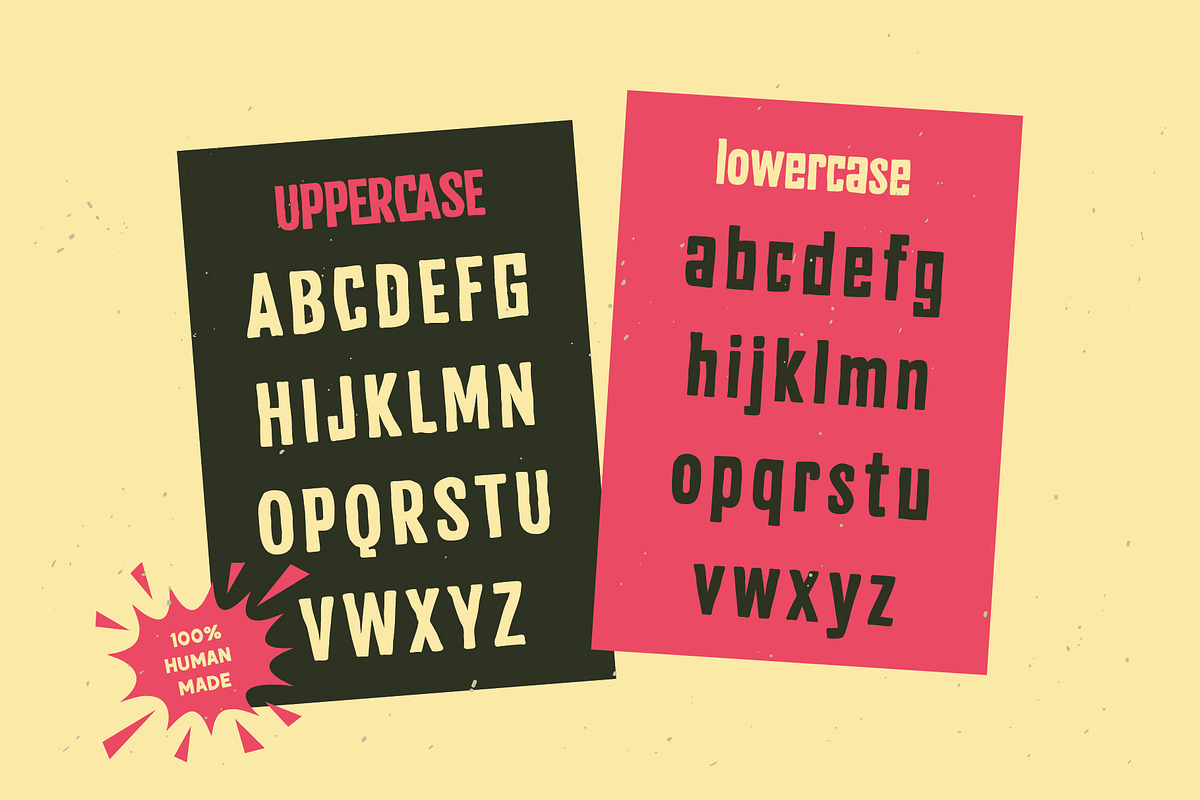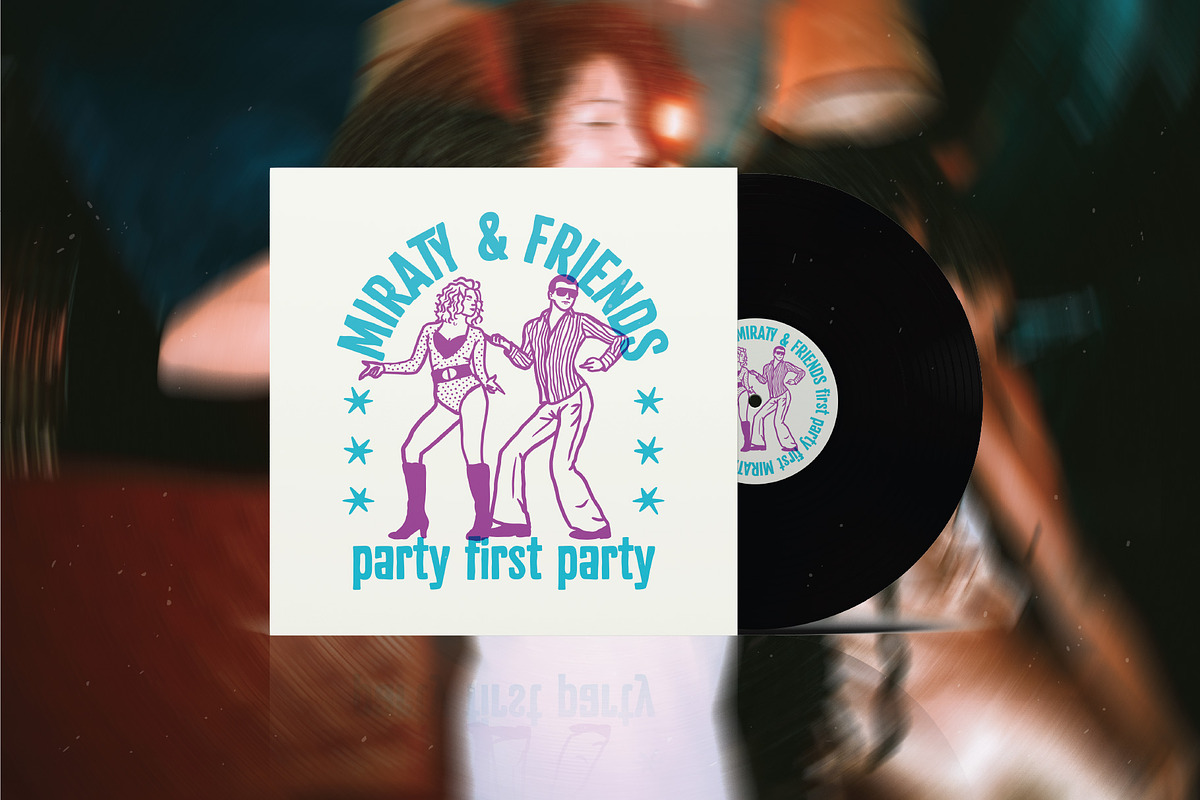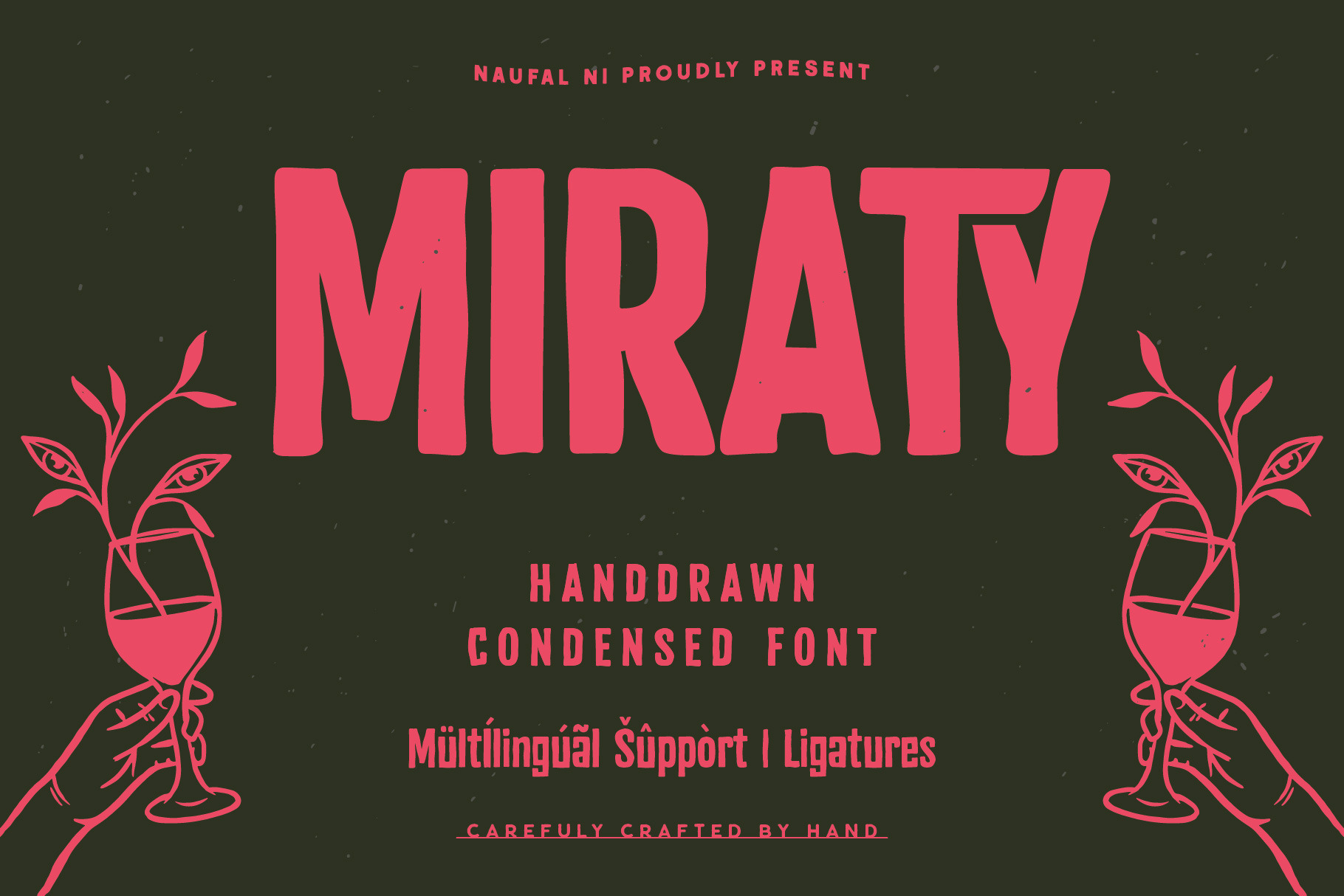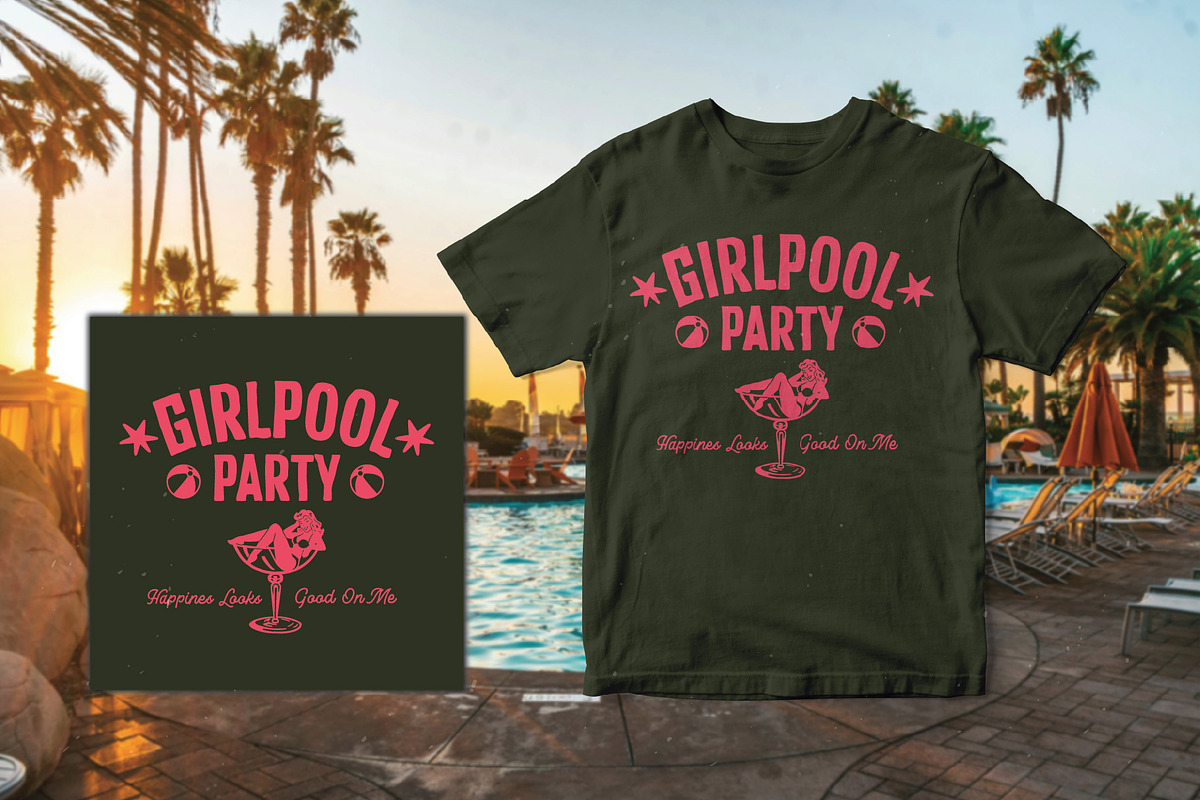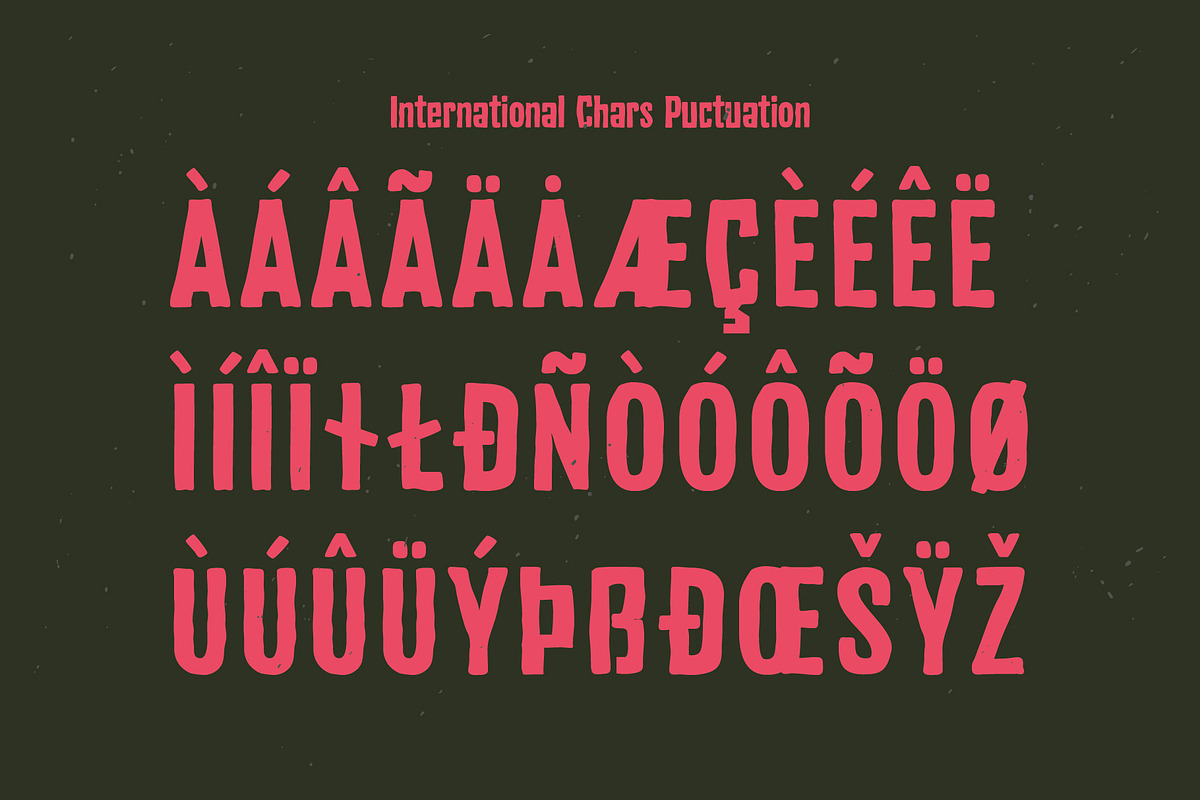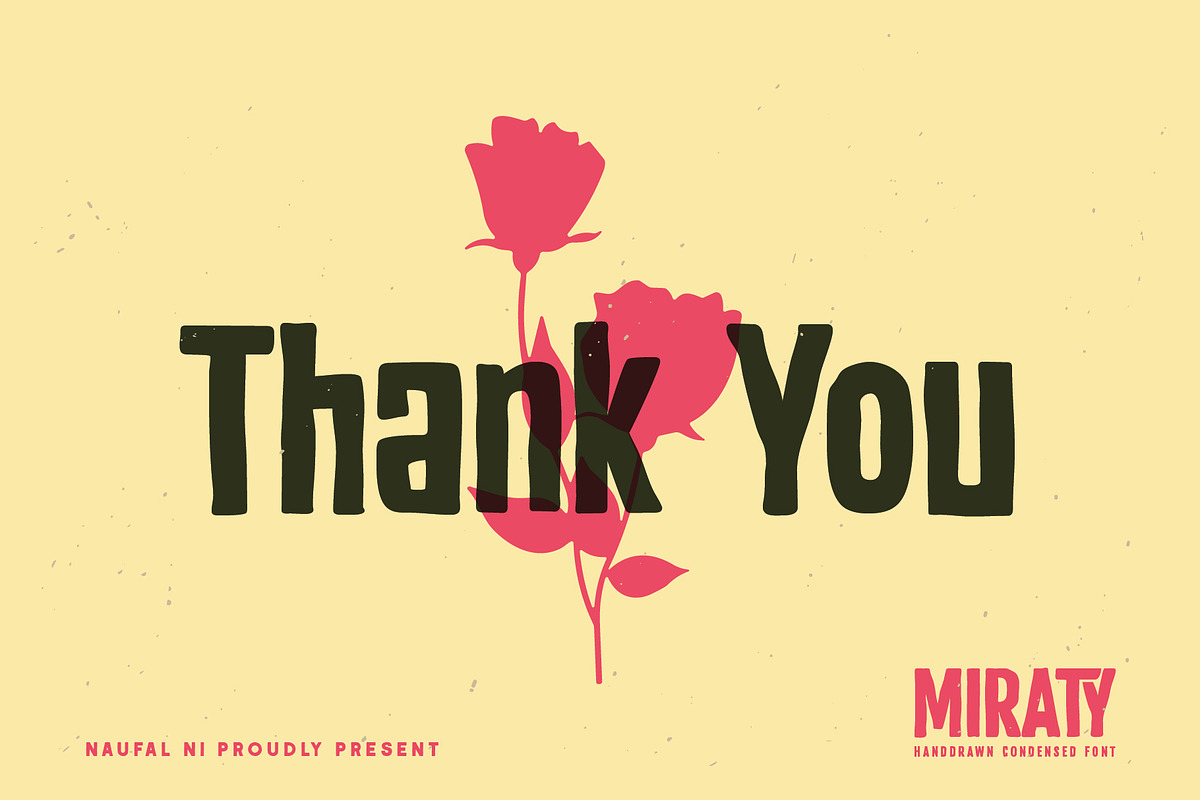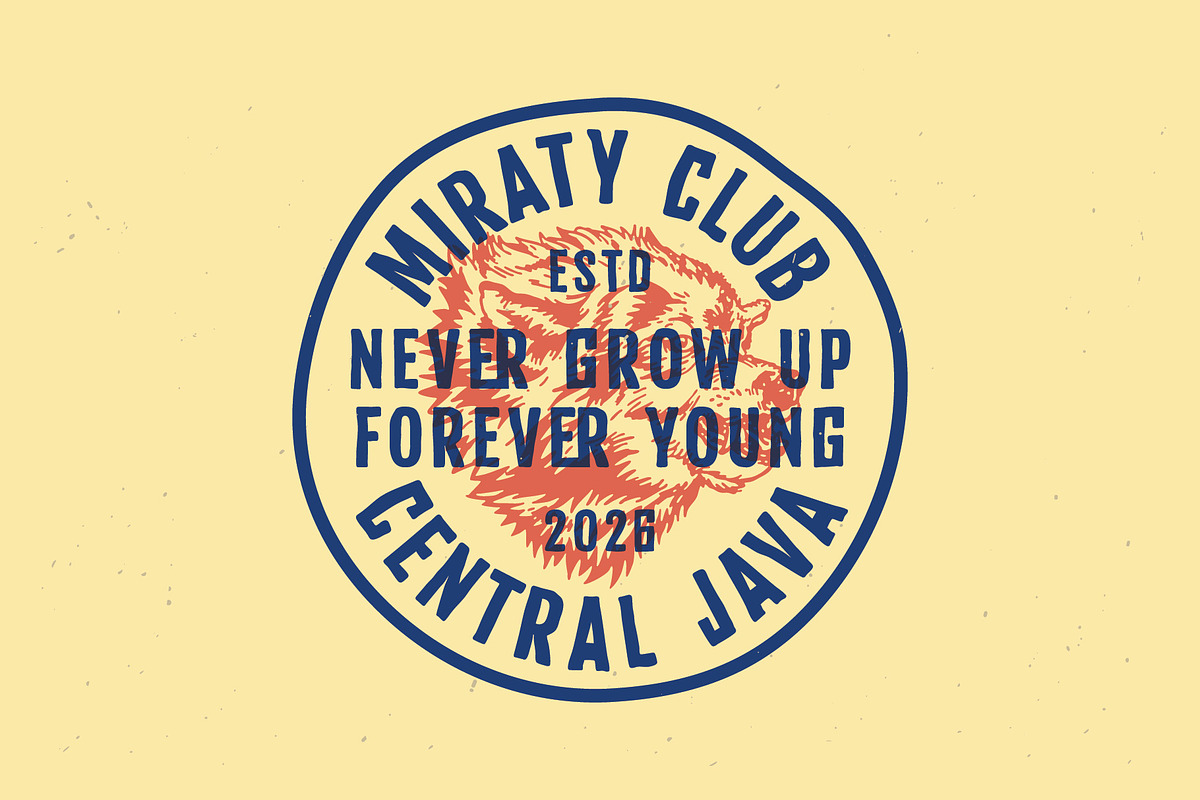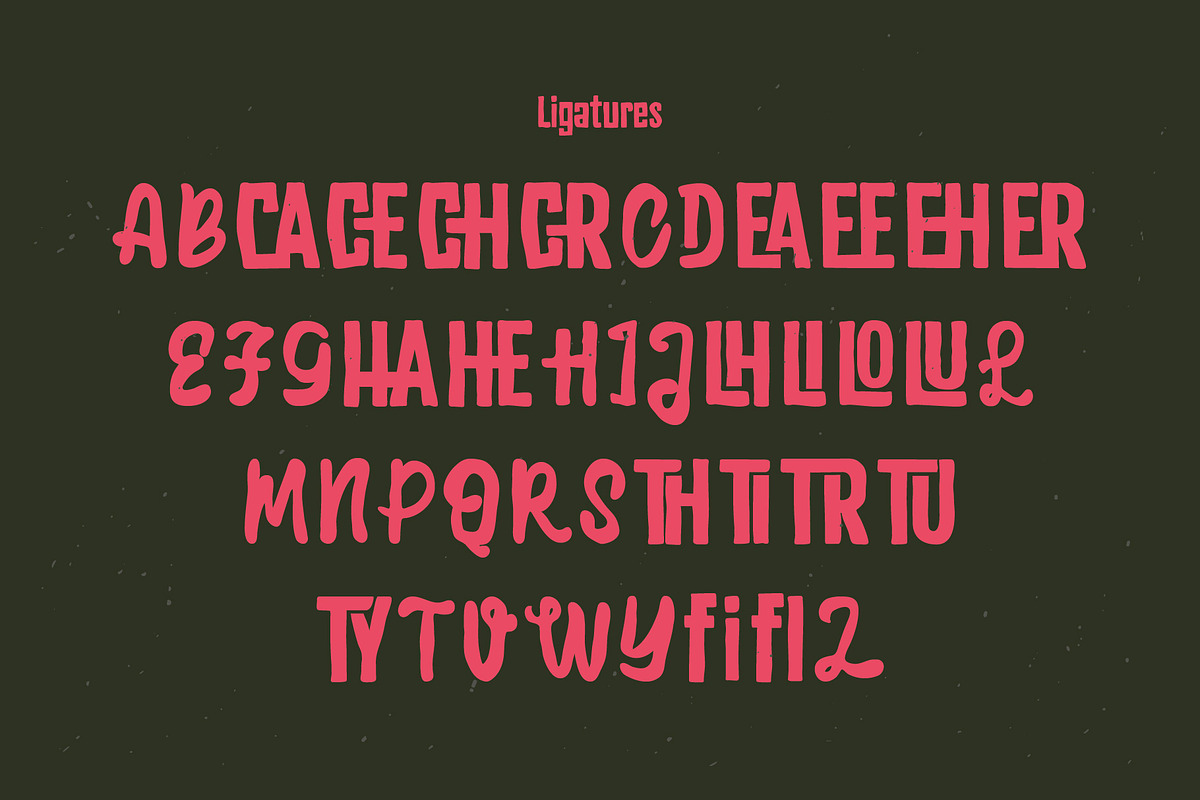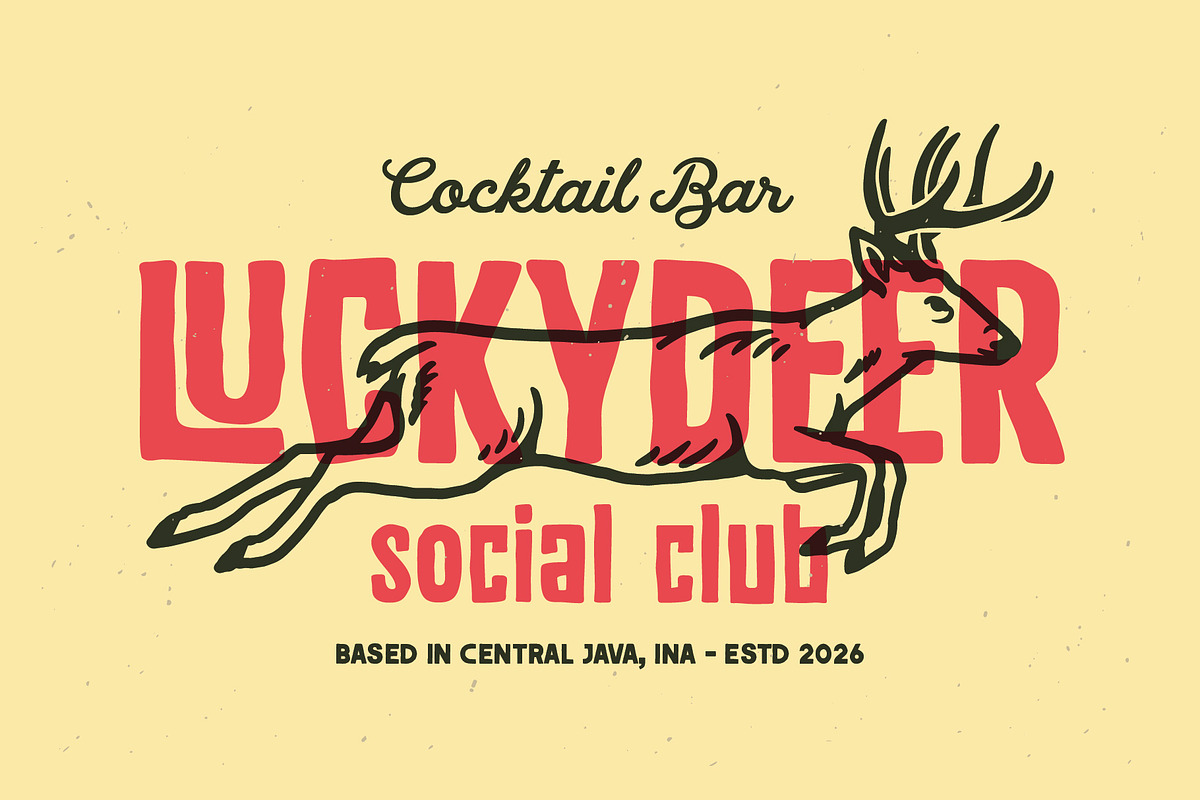
MIRATY - Handdrawn condensed font
Introducing MIRATY
MIRATY is a unique sans-serif font inspired by expressive hand-drawn strokes. It carries a rough, raw character while still maintaining a visually balanced and pleasing look.
In a design era dominated by ultra-minimalist styles, MIRATY offers something different, a more organic, human, and expressive aesthetic. The imperfect strokes give this typeface a natural personality that feels authentic and full of character.
This font is 100% handcrafted, created entirely by human hands, not generated by AI. Every curve and stroke reflects the beauty of manual craftsmanship.
MIRATY is designed to be a timeless typeface. Instead of following temporary trends, it focuses on a classic handcrafted style that remains relevant across different eras and design needs.